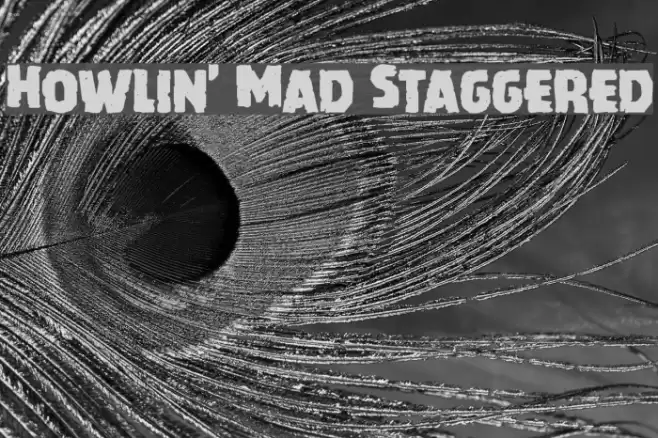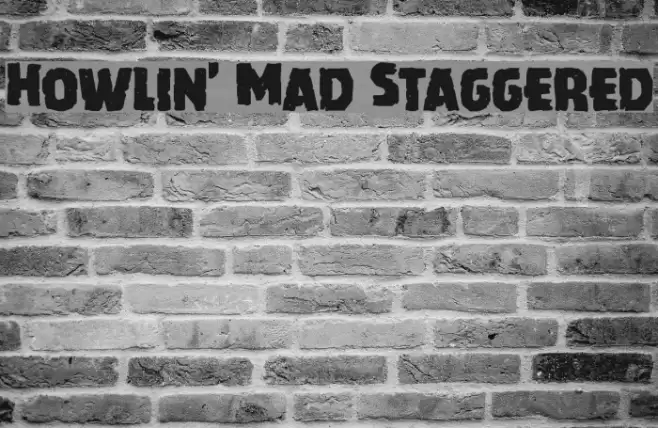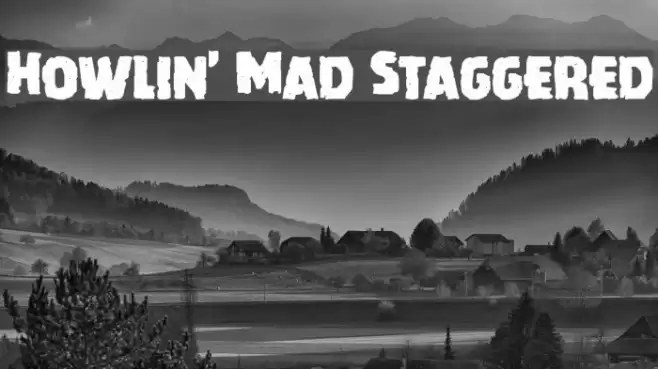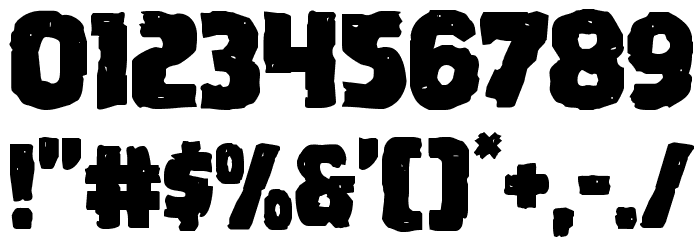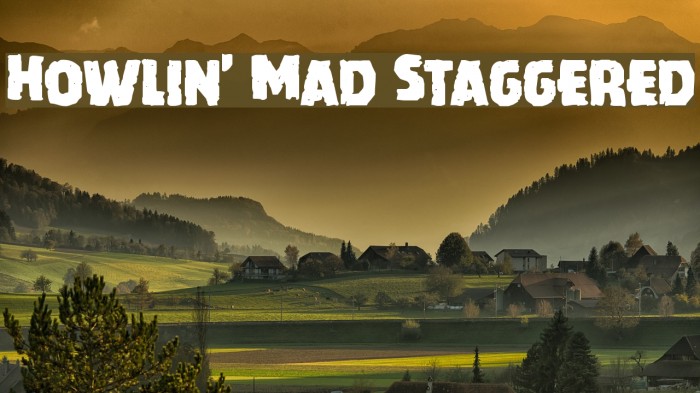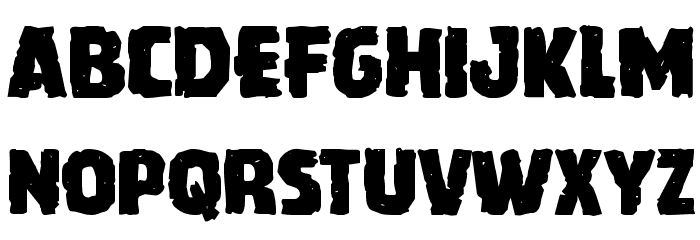
Howlin' Mad Staggered Font
Howlin' Mad Staggered Description
This font features a bold and rugged style, characterized by its distressed and uneven edges, giving it a raw and energetic appearance. The letters are thick and substantial, with a hand-crafted feel that suggests a sense of movement and dynamism. The irregularities in the strokes add a unique personality, making it stand out in any design. Its boldness ensures high visibility, while the distressed texture adds a touch of vintage or grunge aesthetic. This font is perfect for projects that require a strong, impactful presence with a touch of edginess.
A bold, rugged font with distressed edges and a dynamic, handcrafted feel from Uncategorized fonts.
- Proposed Projects: Ideal for posters, album covers, branding for edgy products, or any design needing a bold statement.